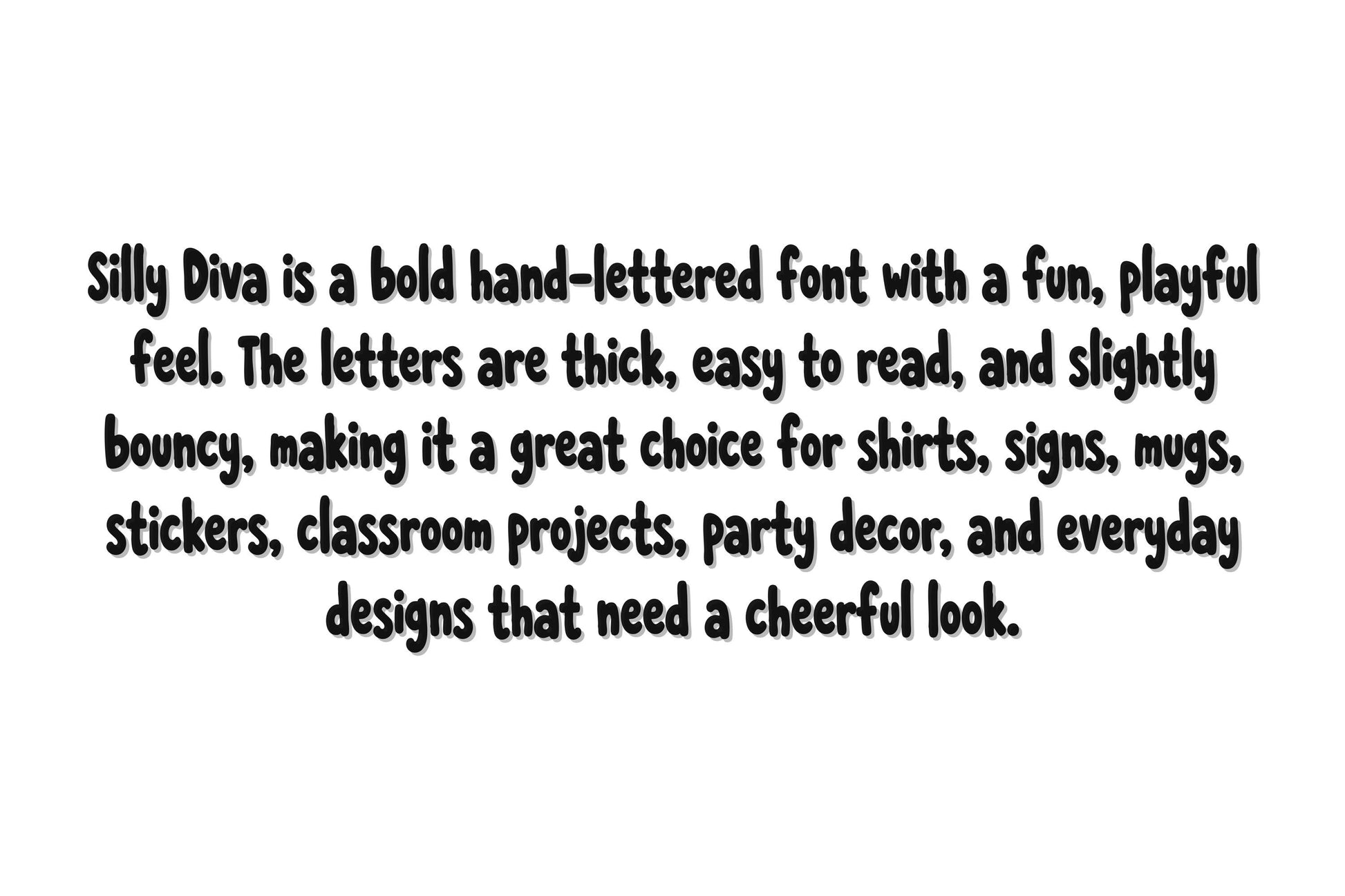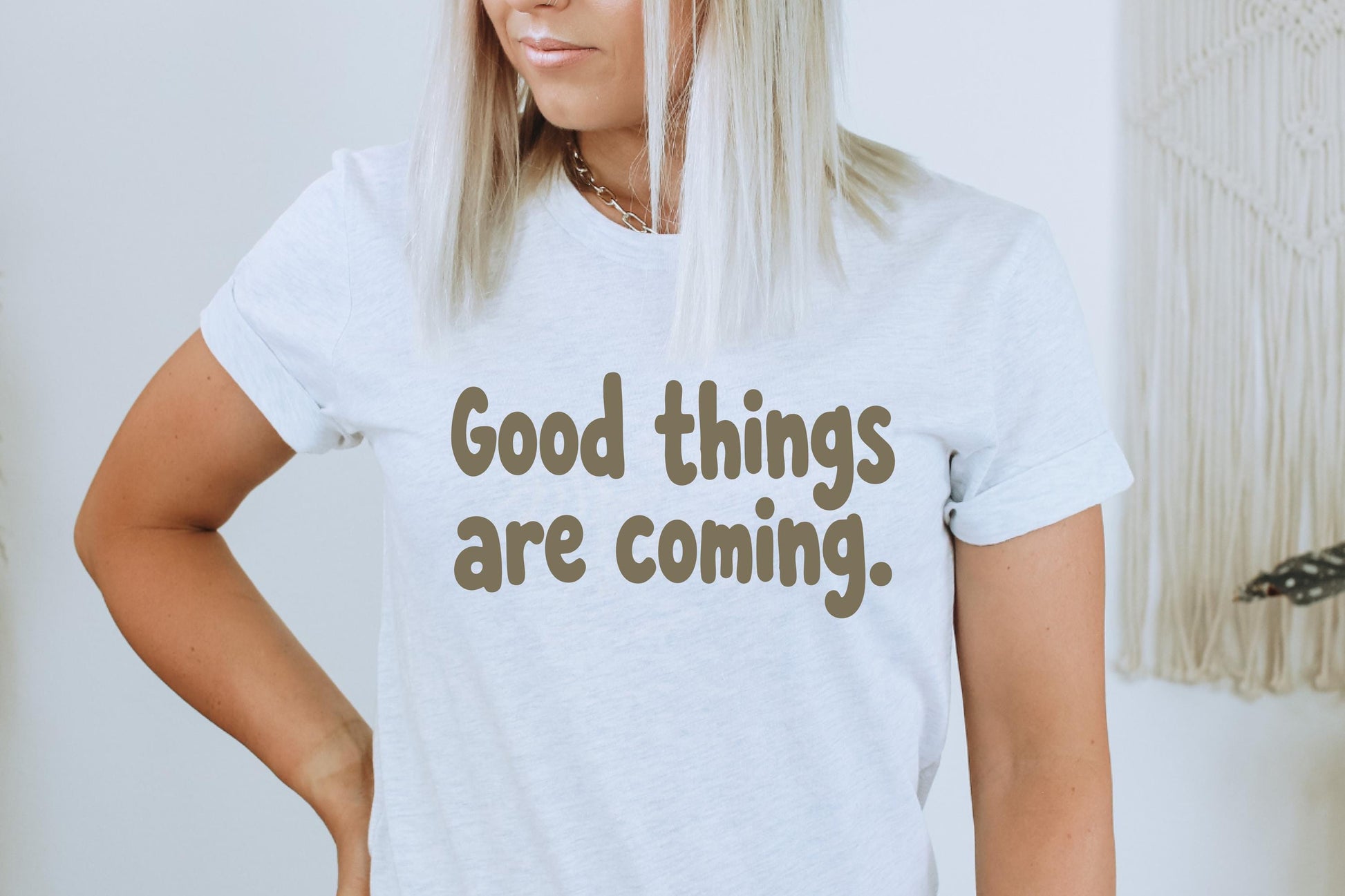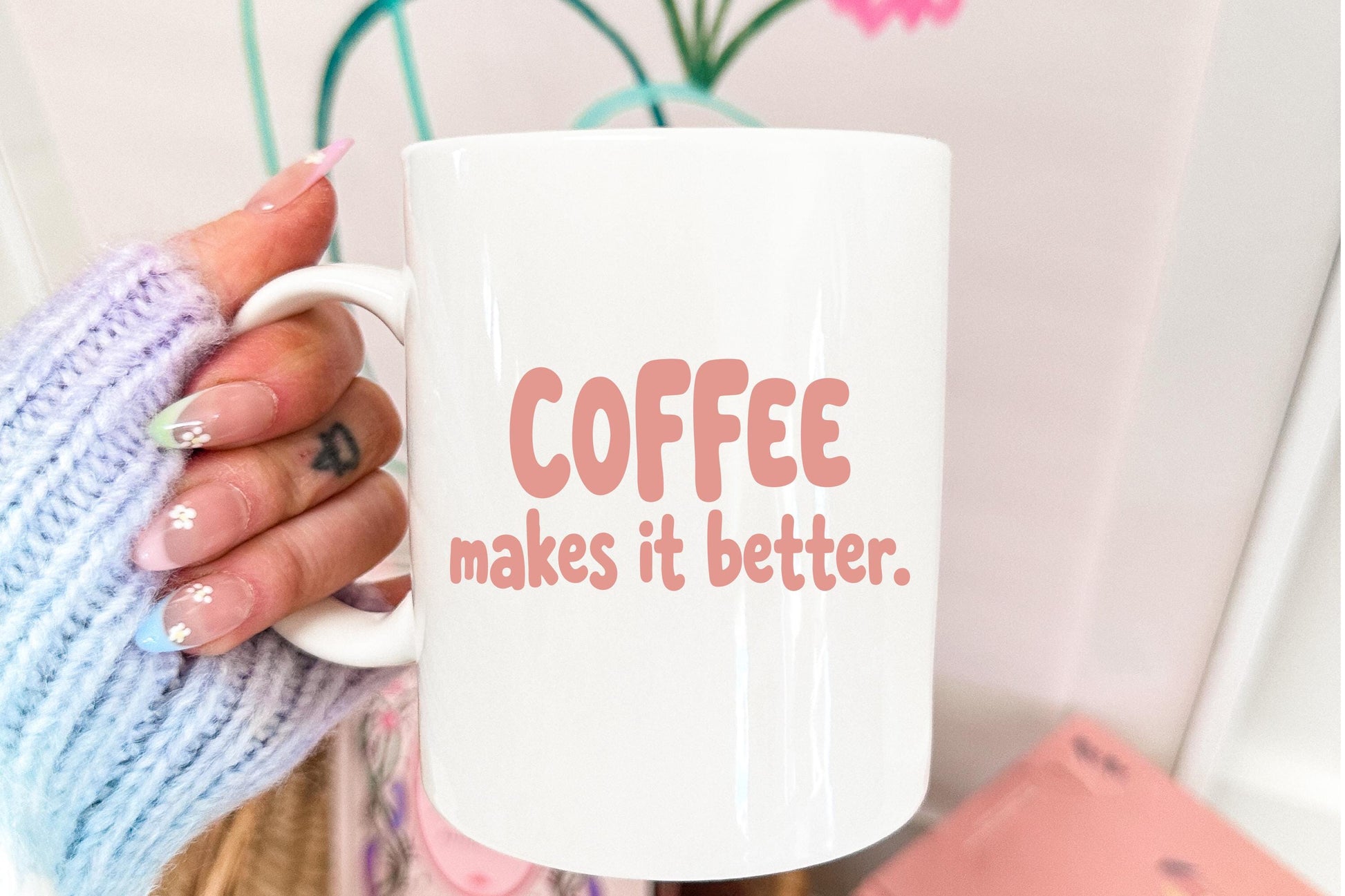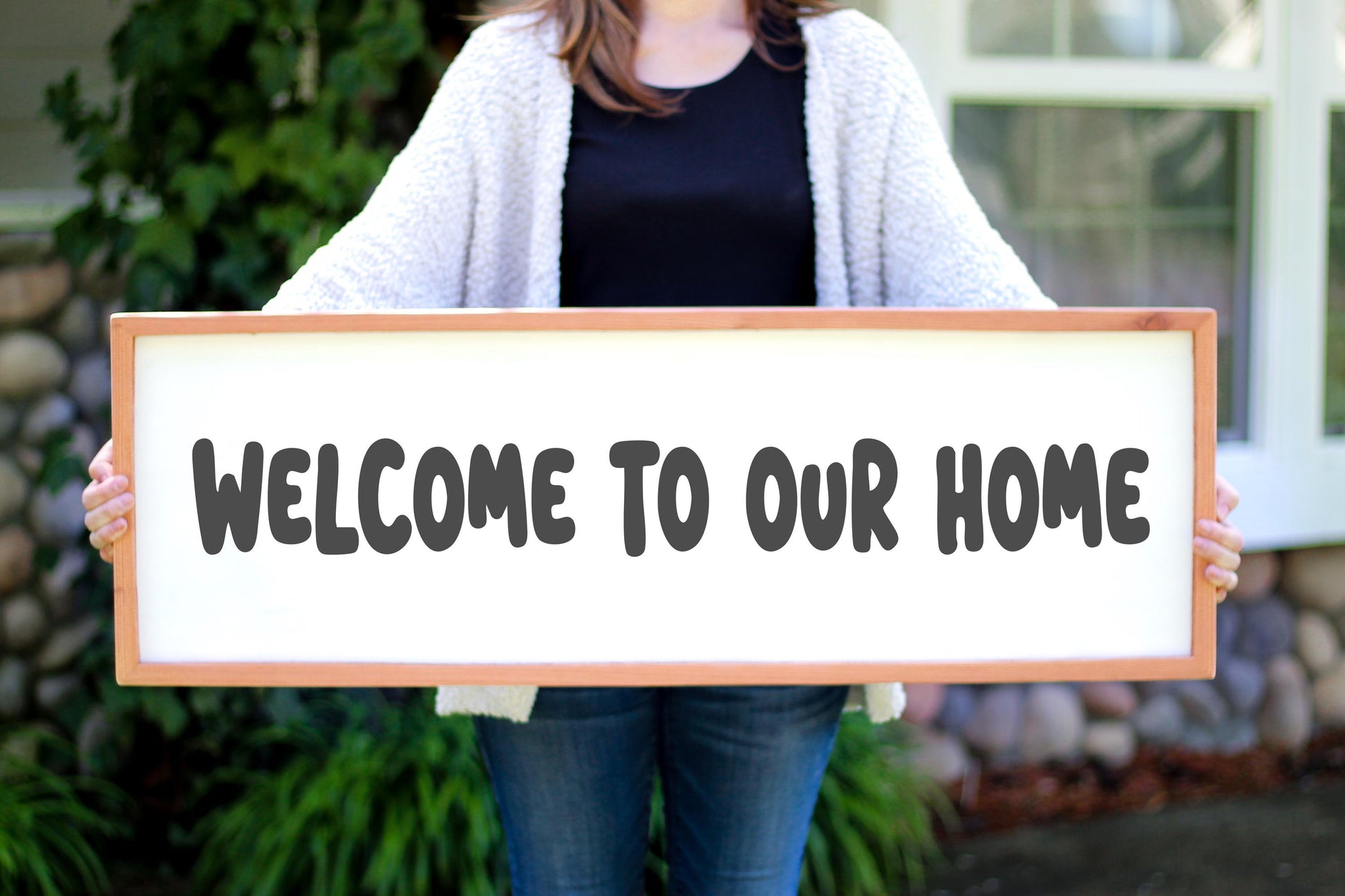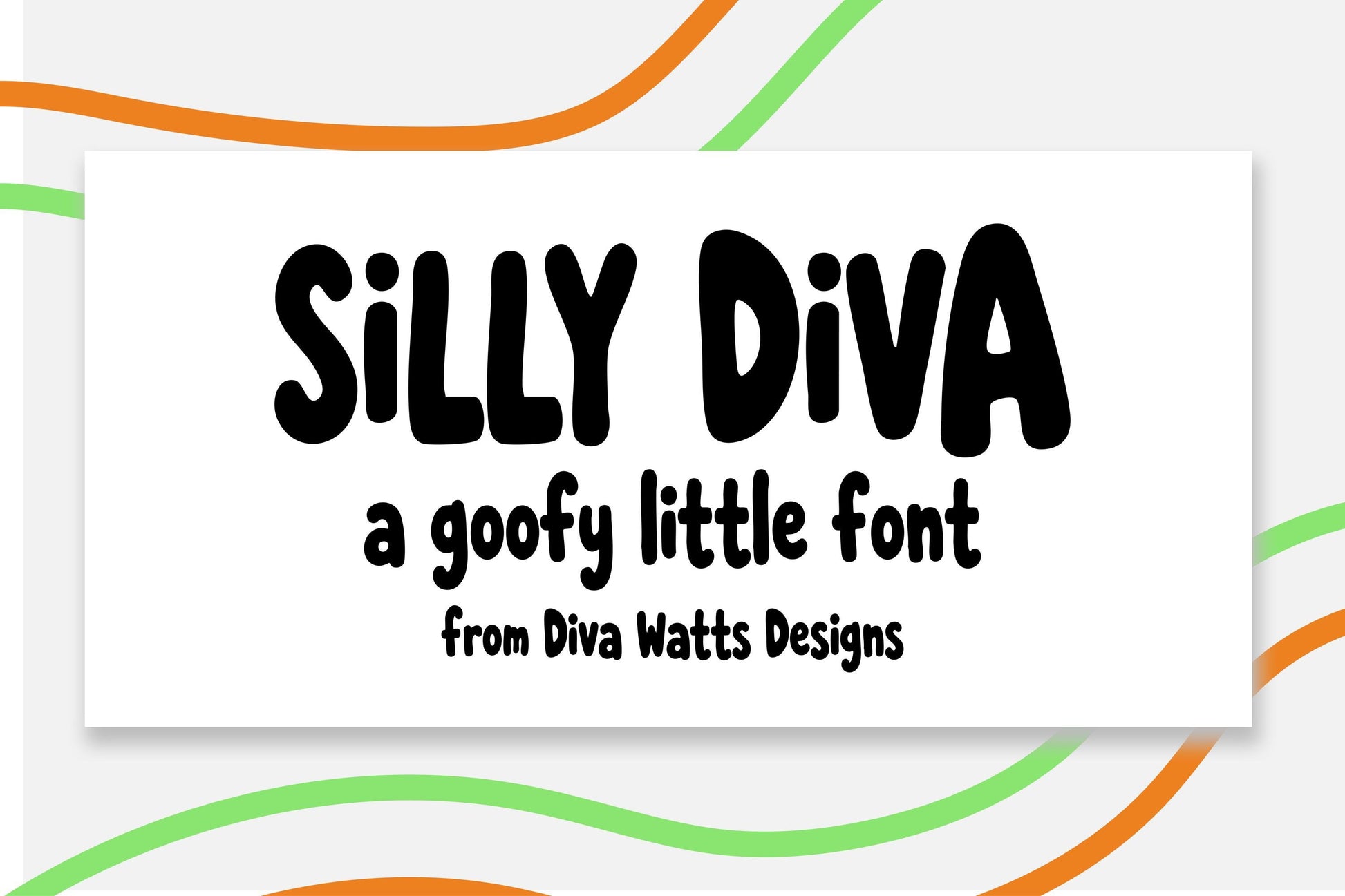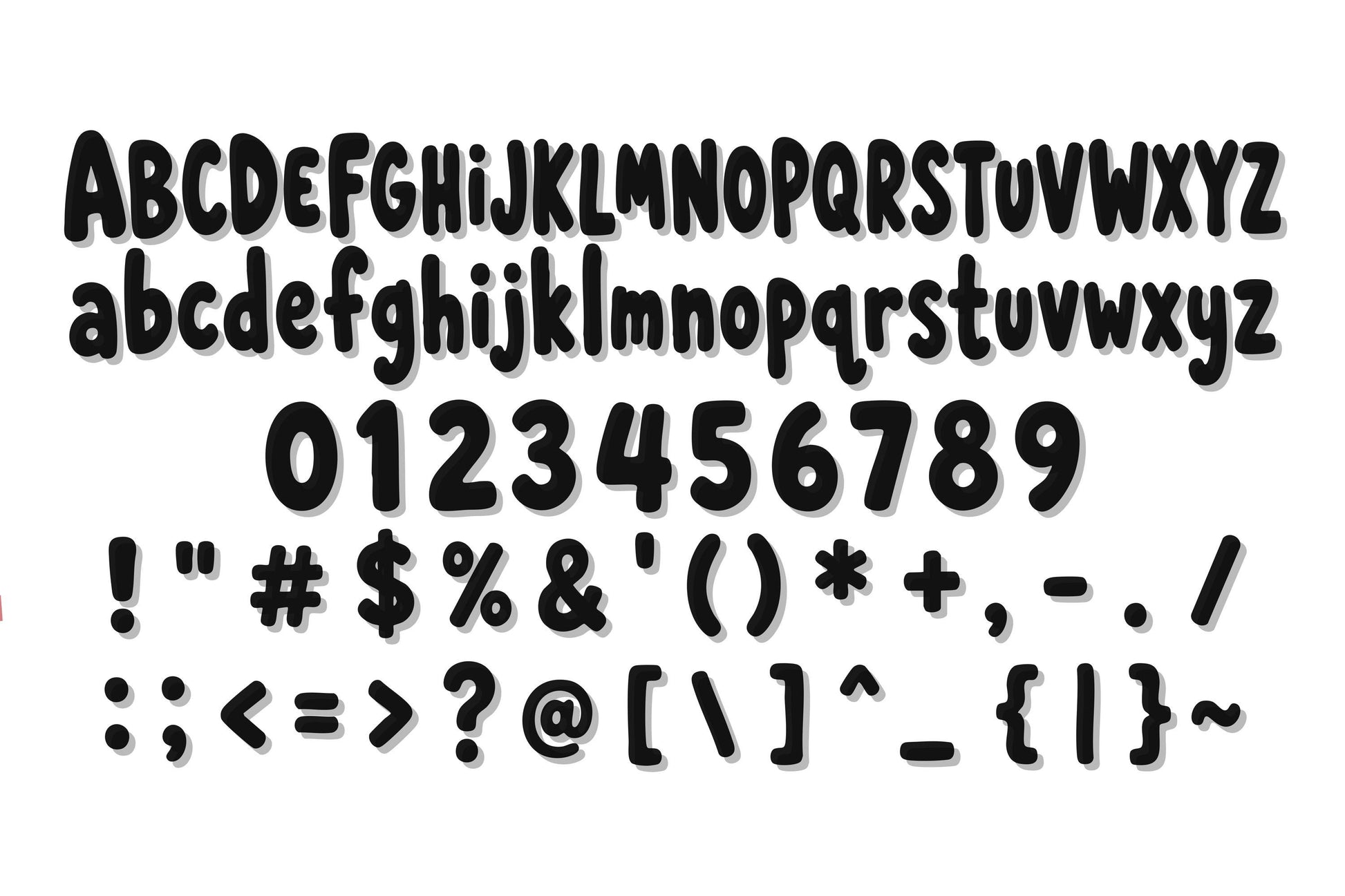
Silly Diva is a goofy little hand-drawn display font designed to bring fun, personality, and playful charm to your creative projects. With its quirky letterforms and whimsical style, this font is perfect for crafting, classroom resources, party invitations, stickers, shirts, signs, sublimation projects, and creative designs that need a lighthearted touch.
This font includes uppercase letters, lowercase letters, numbers, and punctuation as shown in the preview images.
Perfect For:
• Children's designs
• Classroom and teacher resources
• Party invitations and decorations
• T-shirt and apparel projects
• Stickers and decals
• Scrapbooking and paper crafts
• Signs and home decor
• Social media graphics
• Creative branding projects
Why You'll Love It:
• Fun hand-drawn character style
• Includes uppercase, lowercase, numbers, and punctuation
Whether you're creating party decor, playful signs, stickers, or classroom projects, Silly Diva adds a cheerful handmade feel to every design.